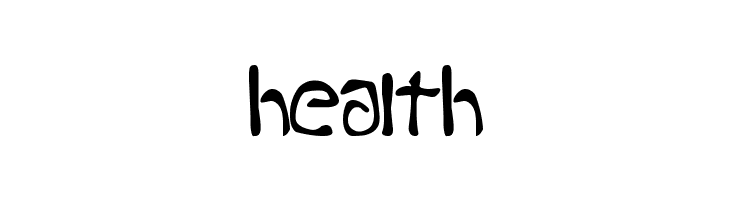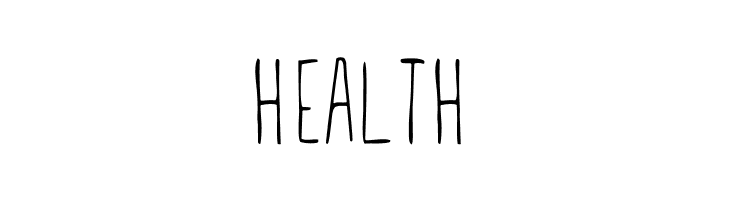
A casual, handwritten-style font with fluid, slanted strokes.
A playful handwritten font with a casual and friendly style.
A bold, playful font with a distinct outline for a three-dimensional effect.
A playful, rounded unicase font with smooth, continuous lines.
A lively, dynamic handwritten font with smooth, continuous strokes.
A playful, handwritten font with smooth, rounded edges and a casual style.
A playful, handwritten font with tall, narrow letters and a whimsical style.
A gothic, thorny font with sharp, decorative elements.
A bold, decorative font with thorny, barbed wire-like accents.
A bold, textured font with diagonal lines, perfect for striking headlines.
A playful and whimsical handwritten font with artistic flair.
A playful, hand-drawn font with tall, narrow letters and a whimsical style.
A bold, rounded font with smooth curves and a friendly appearance.
A decorative and artistic font with intricate swirls and curls.
A delicate, hand-drawn font with thin, flowing lines and a casual handwritten style.
Bold, blocky unicase font with a vintage, distressed texture.
A sophisticated serif font with a unique unicase style and elegant design.
A sophisticated serif font with medium contrast and a unique unicase style.
A high-contrast serif font with a unicase design, blending classic elegance with modern style.
A refined serif font with a unicase design and high contrast strokes.
An elegant, flowing script font with bold uppercase and graceful lowercase letters.
A playful, hand-drawn font with bold, rounded strokes and a whimsical style.
A futuristic, unicase font with geometric and organic elements.